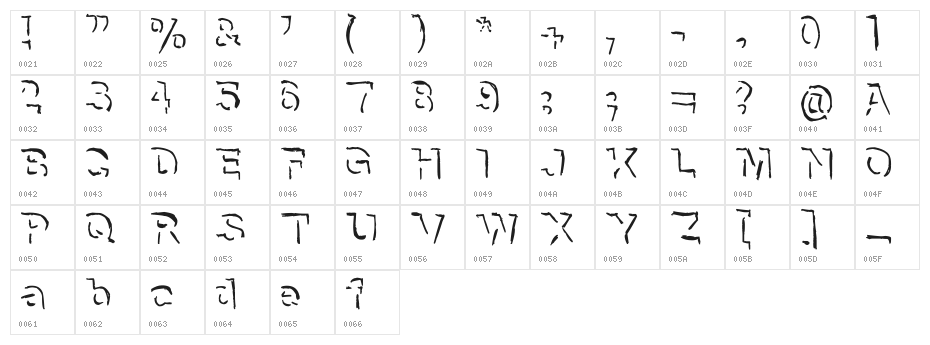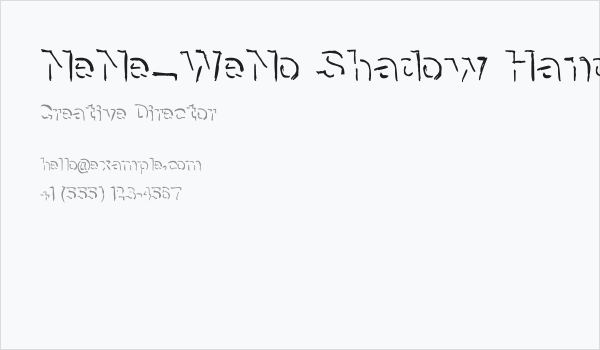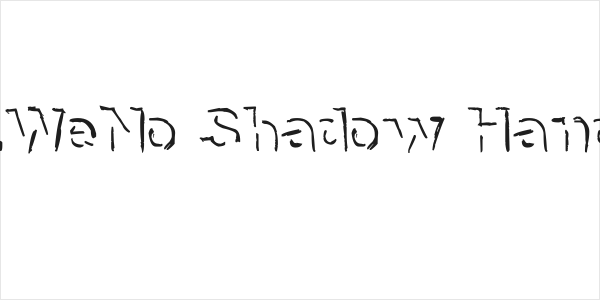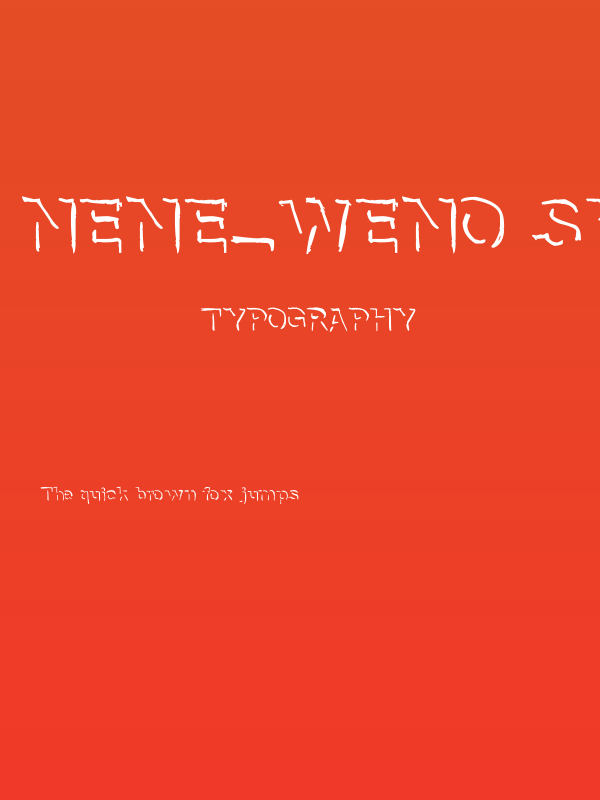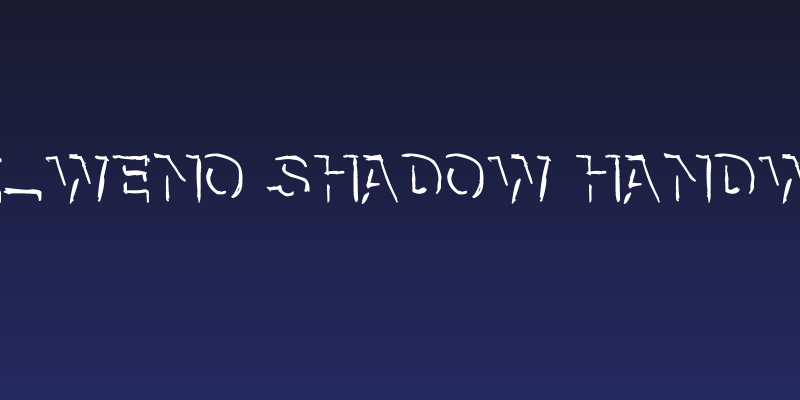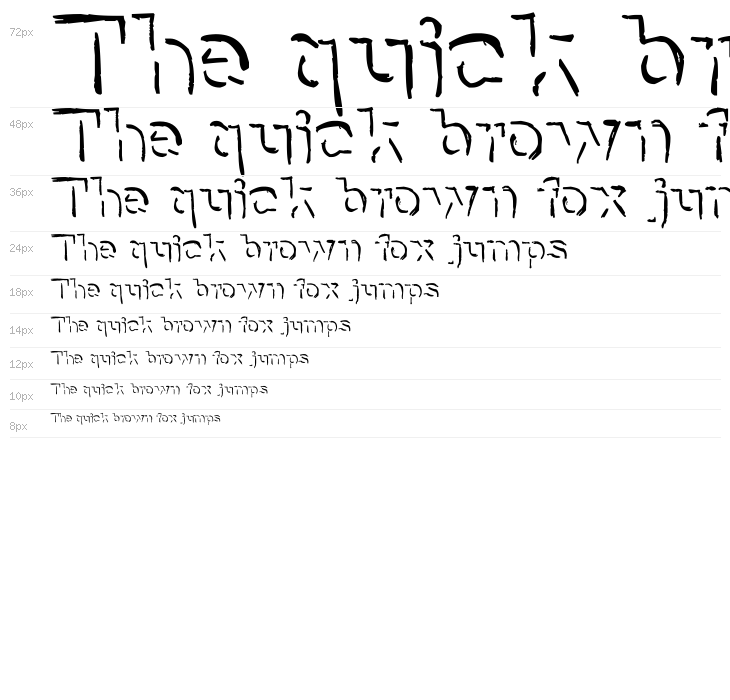
NeNe_WeNo Shadow HandWrite Font
NeNe_WeNo Shadow HandWrite Description
This font exhibits a unique, shadowed handwriting style that combines elements of both casual and artistic design. The uppercase and lowercase letters are crafted with a rough, textured appearance, giving the impression of being hand-drawn with a brush or pen. The characters have a shadow effect that adds depth and dimension, making them stand out. The numbers and special characters maintain this artistic flair, ensuring consistency across the font. The overall look is both playful and sophisticated, suitable for creative projects that require a personal touch.
Use CaseLogos, Posters, Creative Projects
Proposed ProjectsIdeal for greeting cards, artistic posters, branding for creative businesses, and any project needing a personal, handcrafted feel.